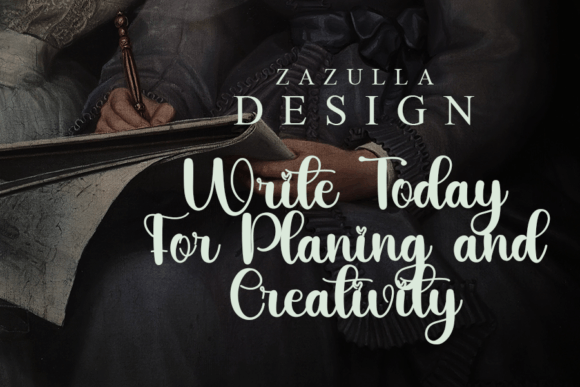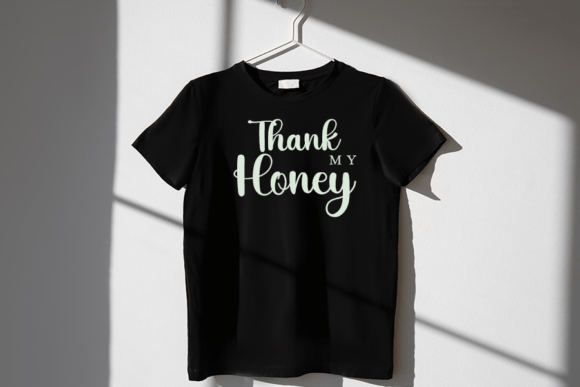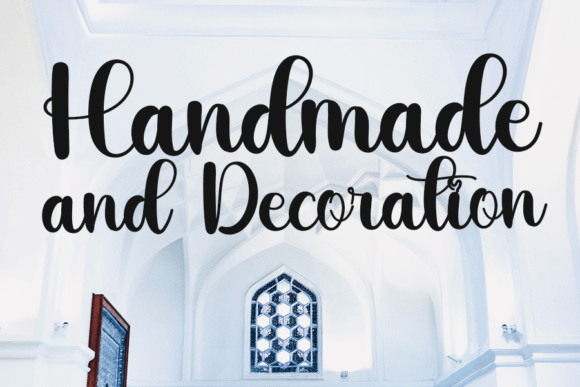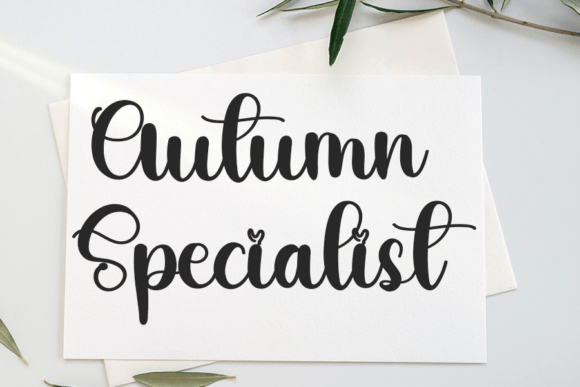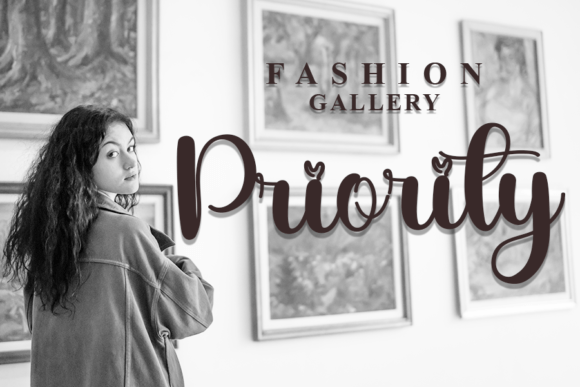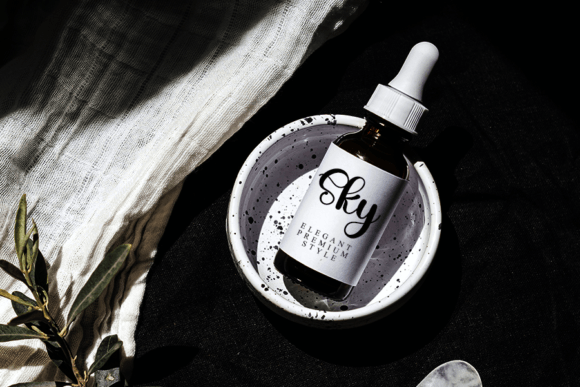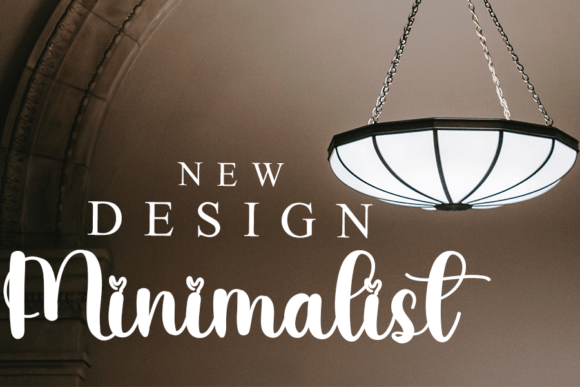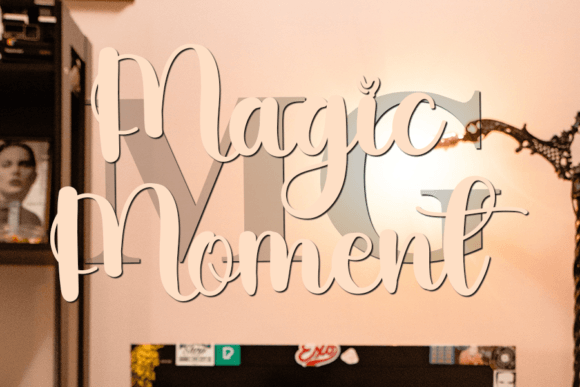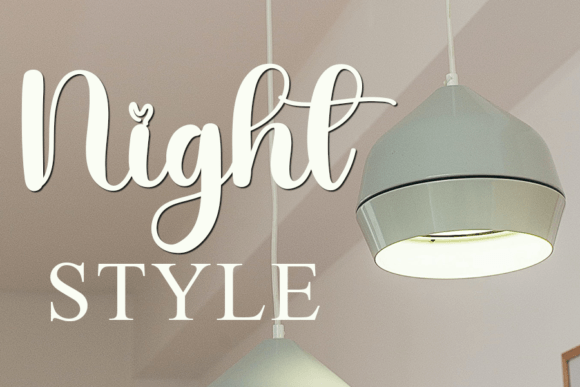
Gallery Font
Gallery Font: Refined Handwriting for Sophisticated Designs
“Gallery” is a beautiful and refined handwritten font that adds a touch of sophistication and modernity to your designs. It’s perfect for various creative projects, elevating them with its elegant style.
Key Features of Gallery Font
• Refined Style: Gallery brings a classy and modern look to designs.
• Versatile Use: Suitable for many projects, from branding to invitations.
• Visual Appeal: Creates a captivating atmosphere in typography.
Elegant Invitations and Stationery
Gallery’s sophisticated style is ideal for creating stunning wedding invitations and special event materials.
Use Gallery to design refined logo designs and branding materials that convey modernity and class.
Editorial and Digital Design
The font’s elegant look makes it perfect for creating eye-catching magazine layouts and website headers.
Why Choose Gallery Font?
Gallery offers more than just beautiful letters. Here’s why it stands out:
• Enhances overall aesthetics with its refined handwritten style
• Conveys a sense of modernity and sophistication effectively
• Adds a touch of timeless beauty to designs
By using Gallery, you open up new design possibilities. Its elegant style works well in many contexts, from greeting cards to poster designs. The font’s ability to convey refinement can inspire creative ideas and help you approach projects from a sophisticated perspective.
If you’re looking for a font that combines beauty with modernity, Gallery is an excellent choice. It’s perfect for adding a touch of sophistication to your work, especially for projects that need an elegant, captivating feel.
Explore how Gallery can transform your designs. From branding materials to personal creations, this font brings a refined and captivating quality to your work.